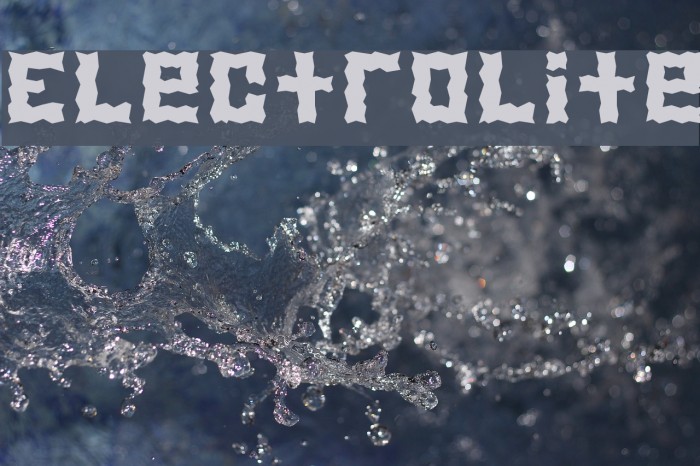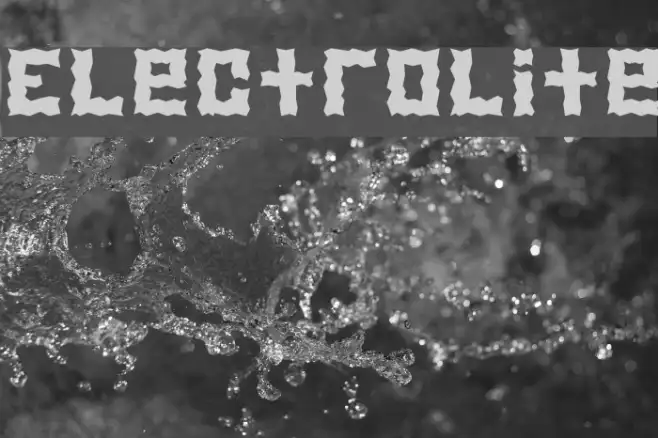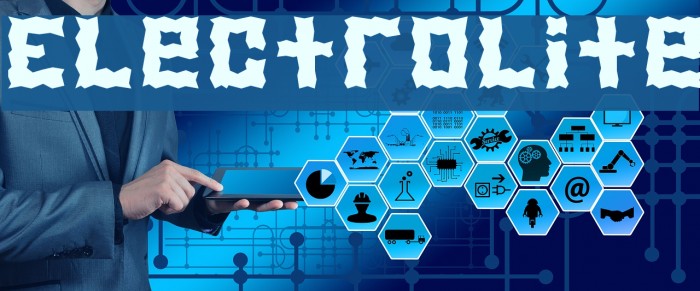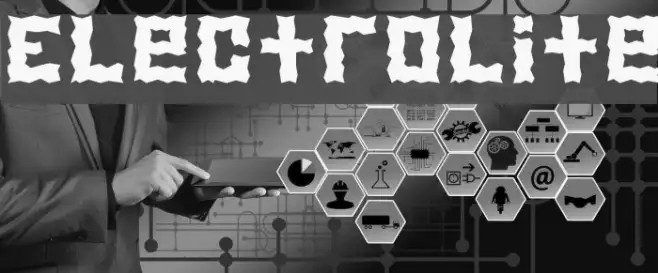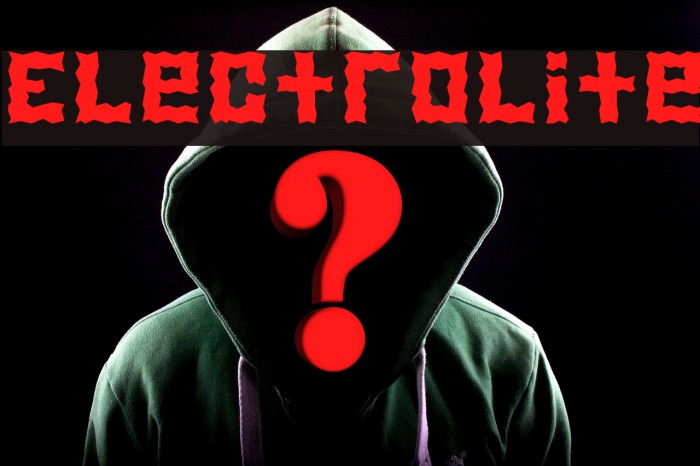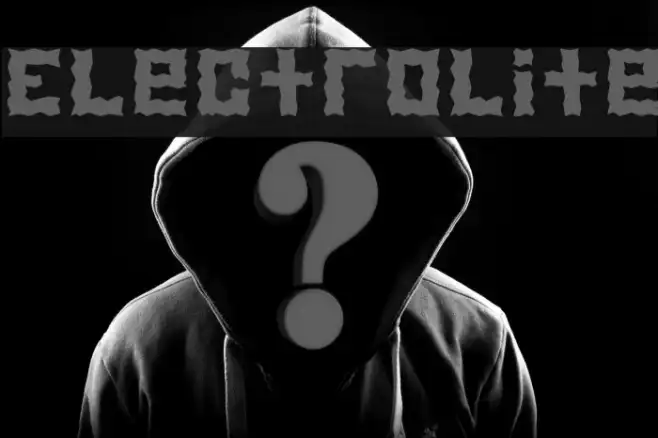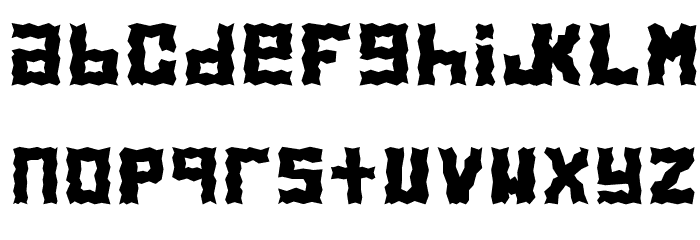
Electrolite Font
This font features a bold and jagged design, reminiscent of electric currents or lightning bolts. Each character is crafted with sharp, angular edges that give it a dynamic and energetic appearance. The uppercase and lowercase letters maintain a consistent style, with the uppercase being slightly more pronounced. Numbers and special characters follow the same aesthetic, ensuring uniformity across all glyphs. The font's unique style makes it stand out, ideal for projects that require a sense of movement or intensity.
A bold, jagged font with an energetic, electric style.
• Proposed Projects: Ideal for music album covers, video game titles, posters, and branding that requires a dynamic and edgy look.
• Category: Decorative/Display
• Bold: Yes
• Italic: No
• Weight: Bold
• Width: Normal
• Character Spacing: Normal
• Contrast: High
• Overall Style: Modern, Energetic
• Use Case: Headlines, Logos, Posters